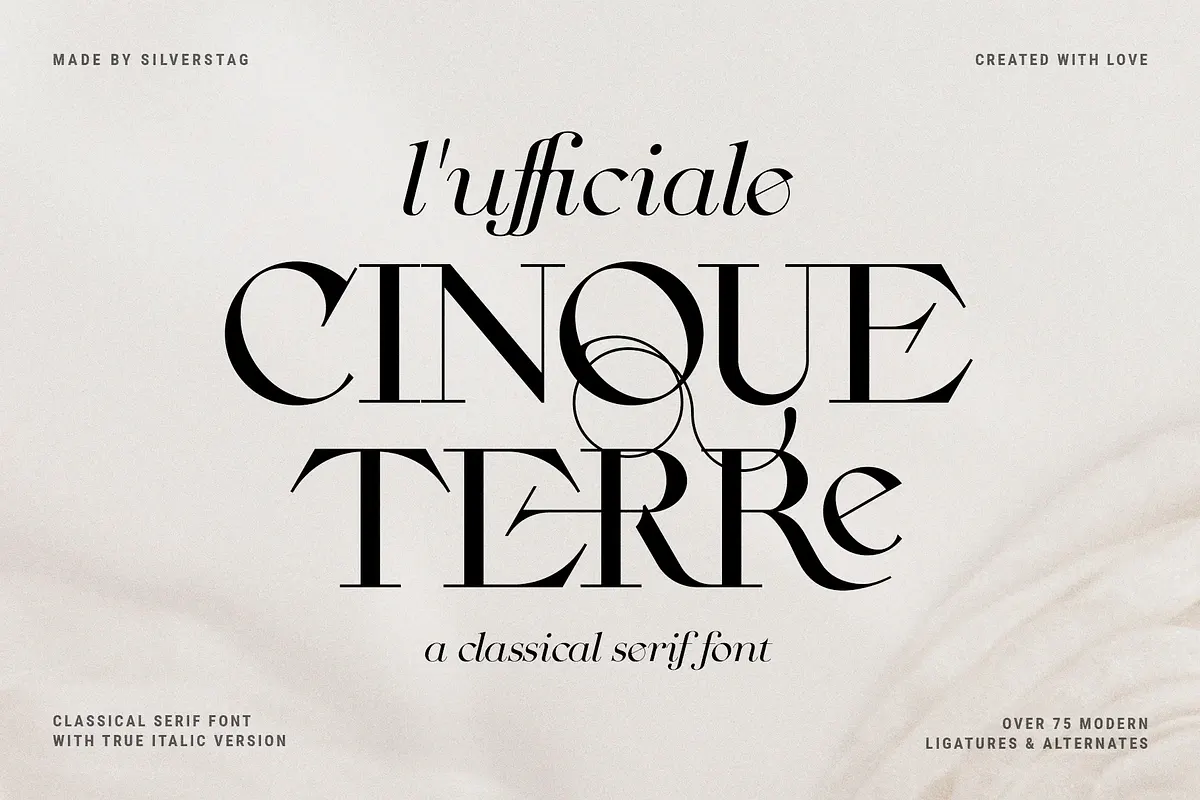
CINQUE TERRE | A Classic Serif Font Free Download
CINQUE TERRE – A Classic Serif Font Free Download is a timeless and elegant typeface inspired by traditional editorial design and Old World charm. Please note, you are required to purchase this font for commercial use. It is available for free download for testing and personal projects only.
With its refined serifs, balanced proportions, and graceful character shapes, CINQUE TERRE is perfect for branding, book covers, magazines, luxury packaging, and wedding stationery. It brings sophistication and heritage to your designs, evoking a sense of classic European style.